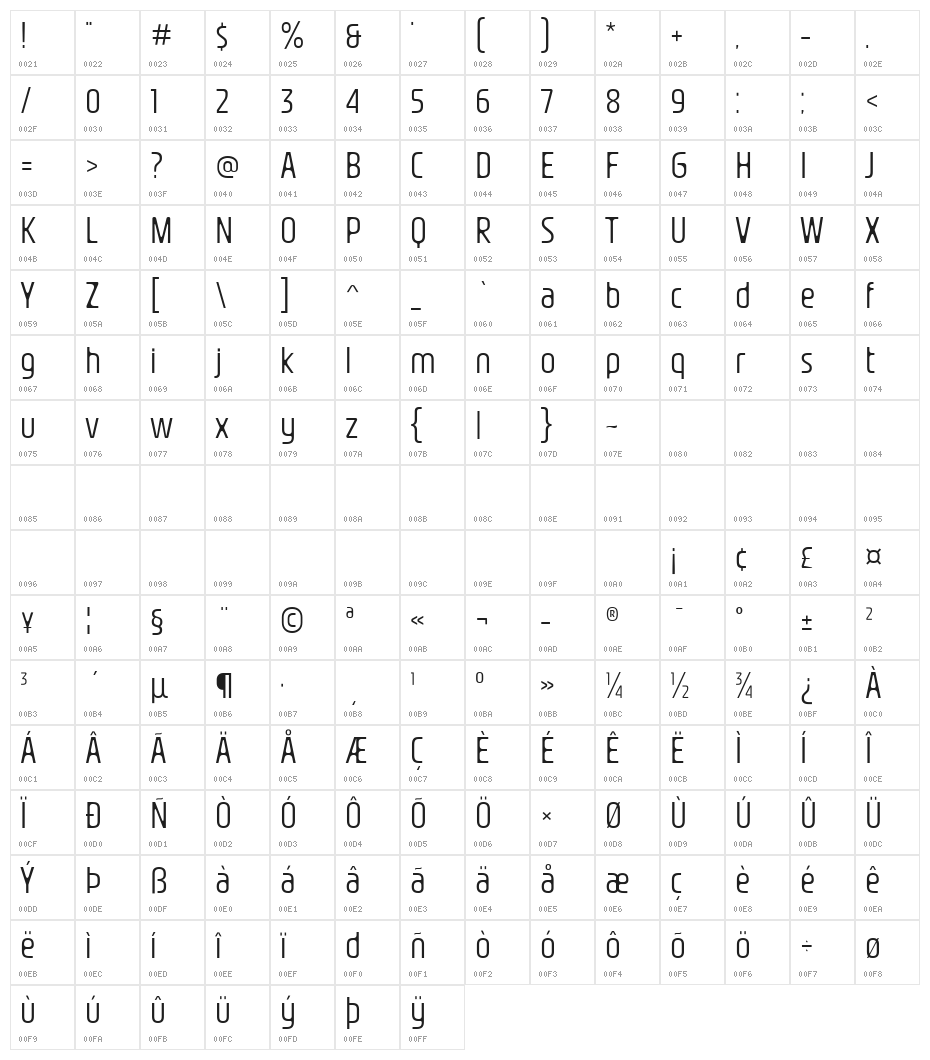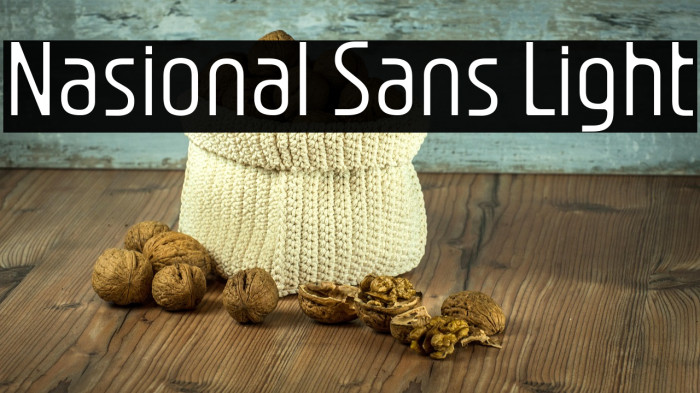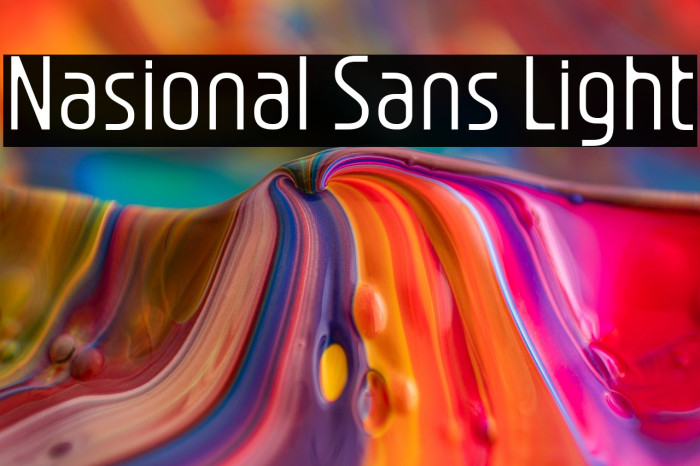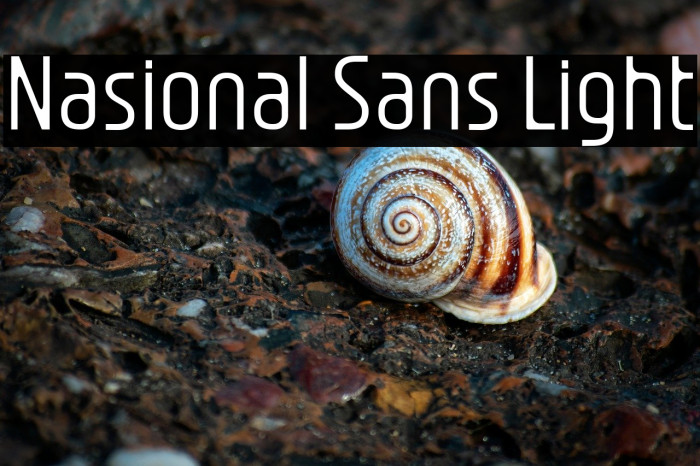
Nasional Sans Light Font
Nasional Sans Light Description
This font exhibits a clean and modern sans-serif style with a light weight, making it ideal for contemporary design projects. The characters are sleek and slightly condensed, providing a streamlined appearance. The uppercase letters are tall and elegant, while the lowercase letters maintain a consistent height, enhancing readability. The numerals are clear and well-proportioned, and the special characters are designed to complement the overall aesthetic. The font's subtle curves and uniform stroke widths contribute to its sophisticated and professional look.
| Proposed Projects | Ideal for branding, web design, corporate materials, and minimalist design projects. |